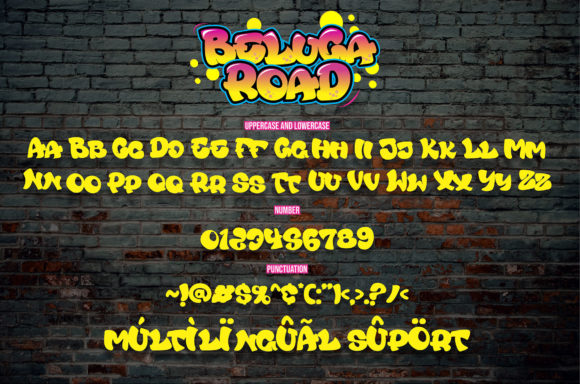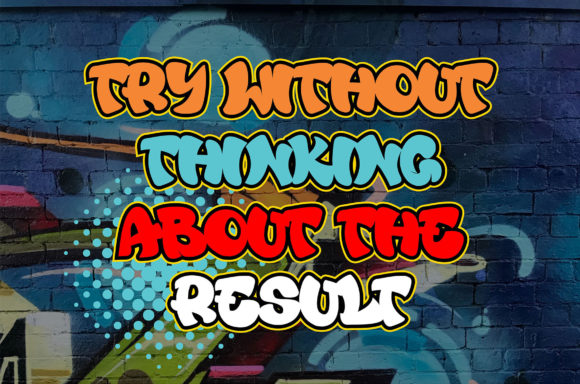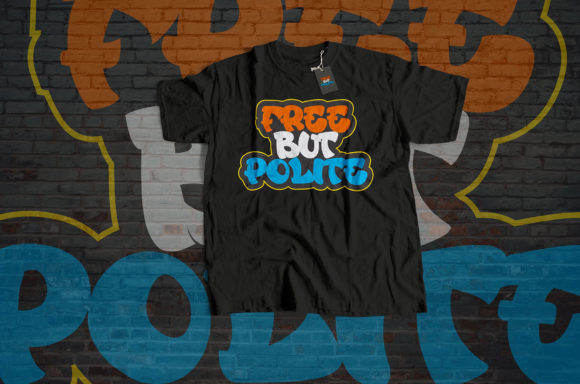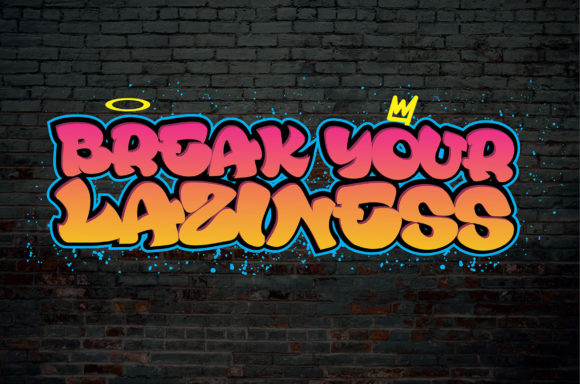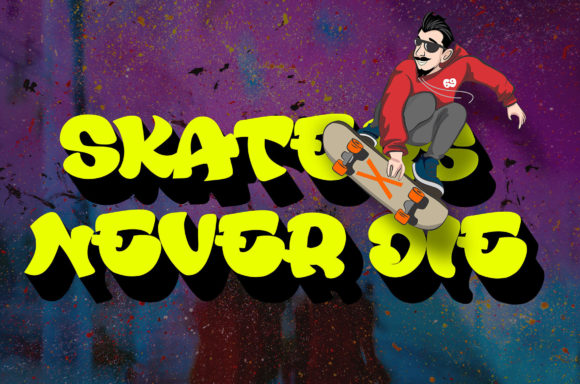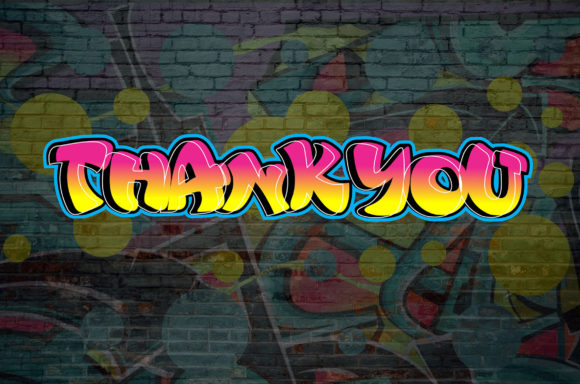
The Birth of a Design Icon: Unveiling the Beluga Road Font
You’ve probably experienced that moment when inspiration strikes, and everything falls into place. The creative juices start flowing, and before you know it, you’ve crafted something truly unique. For designers, this is what makes the process so exhilarating – the rush of bringing an idea to life. And when the right tools are at your disposal, the possibilities become endless. One such tool that has been making waves in the design community is the Beluga Road Font, a cool, graffiti-styled display font that’s perfect for adding a touch of edginess to your designs.
This versatile font is ideal for a variety of applications, from t-shirts and sportswear to logos, advertisements, and clothing. Its neat and stylish design makes it a valuable asset for designers looking to add some visual interest to their projects. Whether you’re a seasoned pro or just starting out, the Beluga Road Font is definitely worth getting familiar with.
- Unique Characteristics: The Beluga Road Font features a unique blend of modern and vintage elements, with a distinctive rounded shape and subtle flair, making it ideal for creative and artistic designs.
Designer Review: Beluga Road Font
First impressions are everything, and Beluga Road Font delivers. ✨ The playful, handwritten feel is perfect for adding a touch of whimsy to your designs. The font’s friendly demeanor is sure to put a smile on your audience’s face.
The font’s versatility is another major plus. ✨ It’s suitable for a wide range of applications, from social media graphics to advertisements and even editorial content. The font’s fluid lines and organic feel make it an excellent choice for designers looking to add some visual interest to their work.
Limits and Drawbacks
While Beluga Road Font is a solid addition to any designer’s toolkit, there are a few limitations to be aware of. ⚠️ For one, the font’s readability can suffer in smaller font sizes. Be sure to test your designs at various sizes to ensure the font remains legible.
Overall, I’m impressed with Beluga Road Font. It’s a well-designed font that’s perfect for adding a touch of personality to your designs. While it may have a few limitations, the font’s unique feel and versatility make it a great addition to any designer’s toolkit.
- Playful, handwritten feel
- Perfect for social media graphics, advertisements, and editorial content
- Fluid lines and organic feel
- May suffer in smaller font sizes
The Beluga Road Font is ideal for use in branding, advertising, and editorial design. To get the most out of it, use it in conjunction with other fonts to create a visually appealing and cohesive design. Experiment with different font sizes, colors, and styles to find the perfect combination.